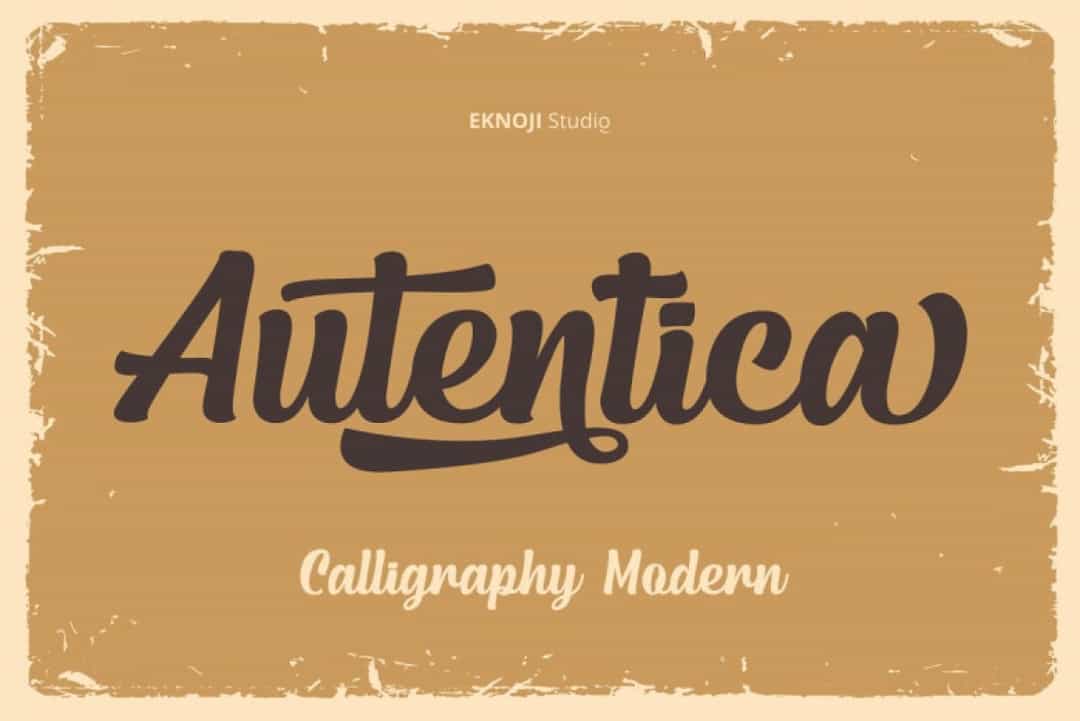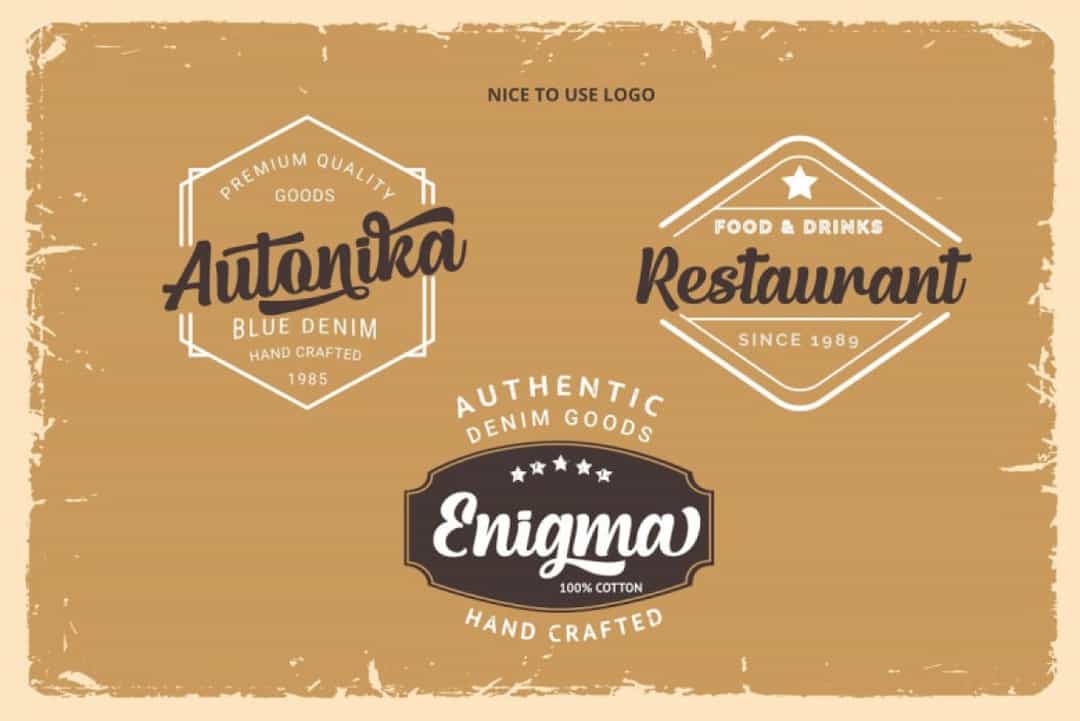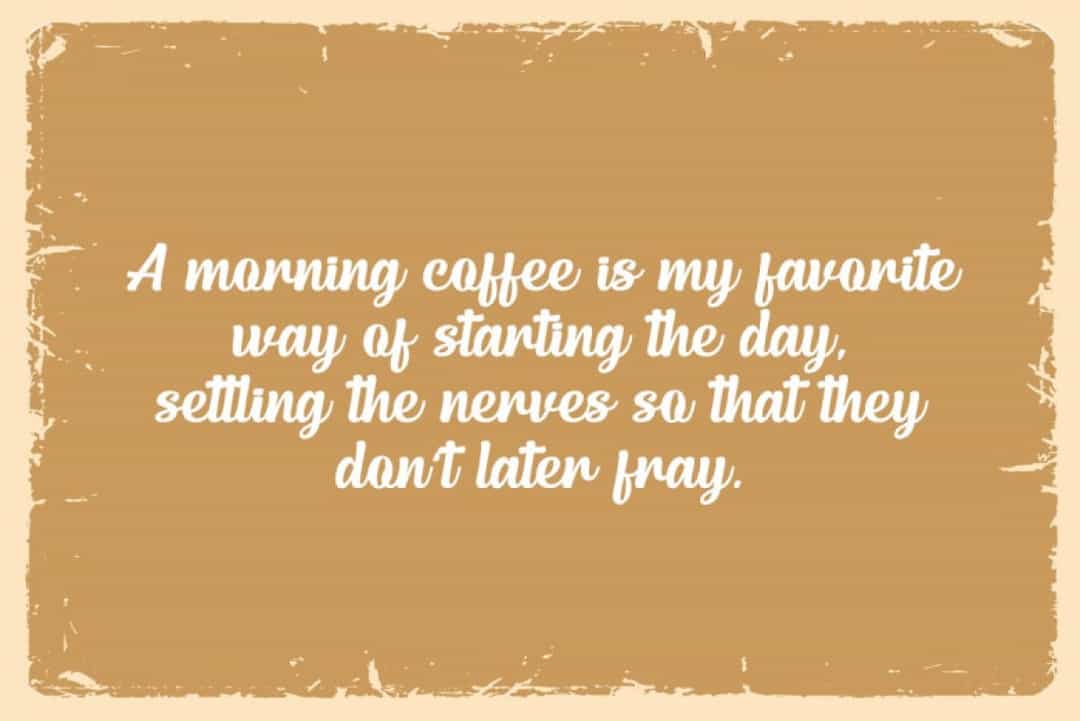
Autentica is an exquisite script calligraphy font created to add an eye-catching style to headlines and logotype projects with its stylish script calligraphy style. Bold, energetic, confident and professional in appearance; Autentica adds charm and nostalgia into any work environment! PUA encoded, Autentica allows easy access to its glyphs as well as swashes!